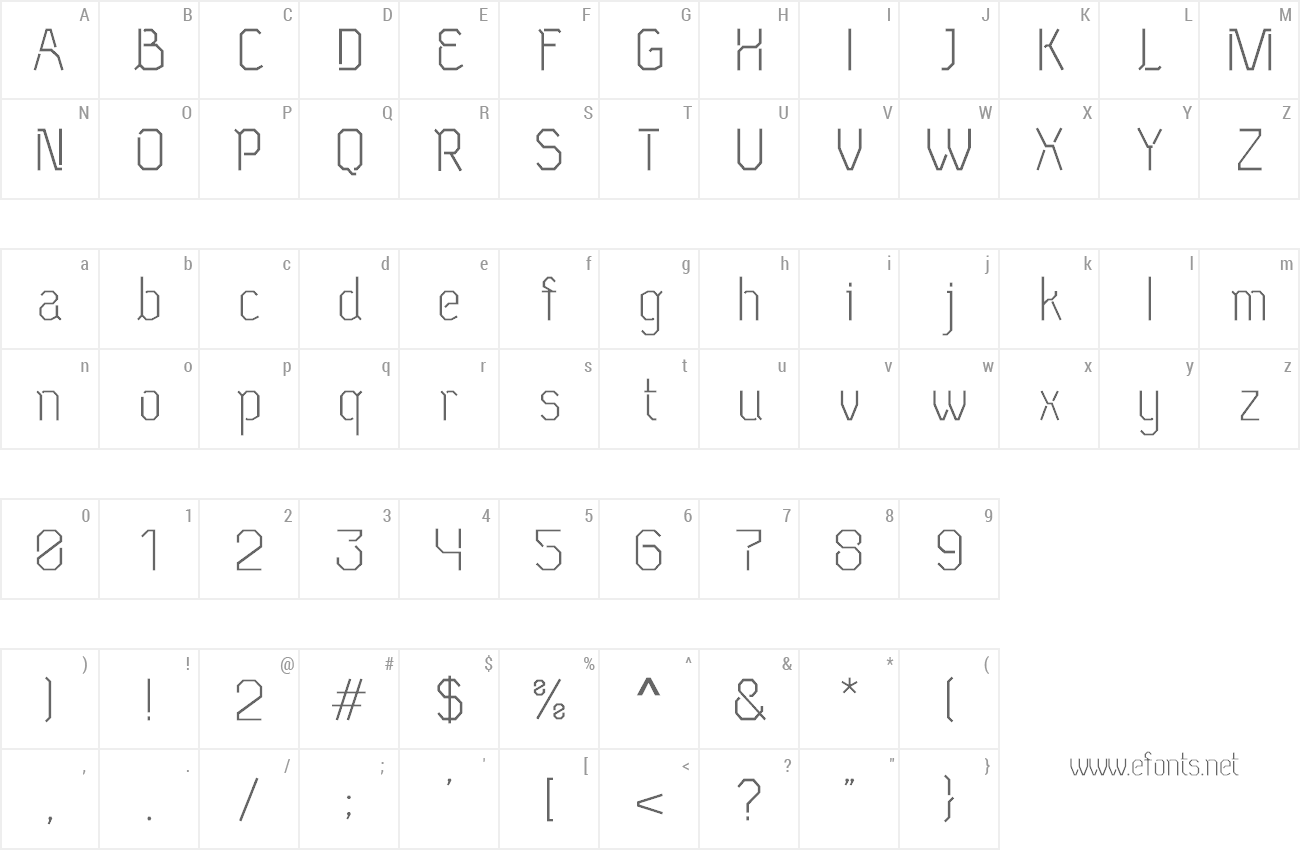
| Font name: | Neu Eichmass |
| Author: | Ivan Khmelevsky |
| Note by Ivan Khmelevsky | |
This is a free font that can be used for personal and commercial work. Suitable for stencils and Headline text and medium point body text in print. Not hinted, so I discourage everyone from using it for on screen purposes. |